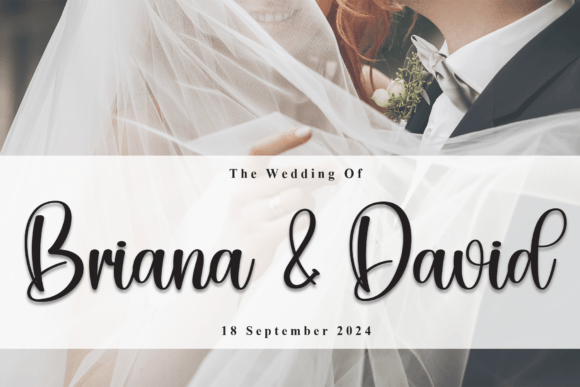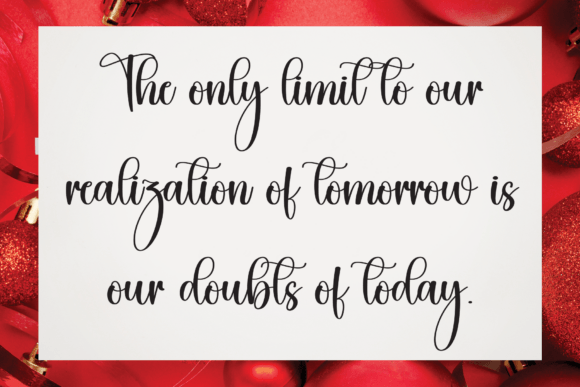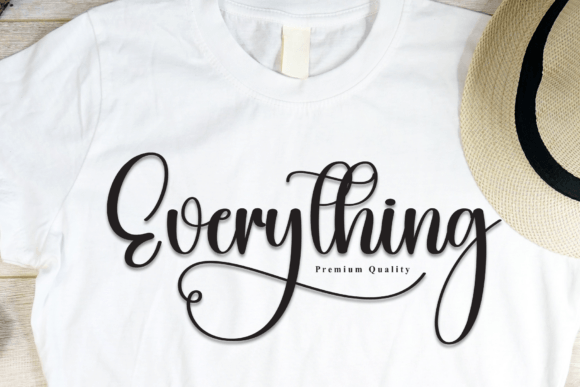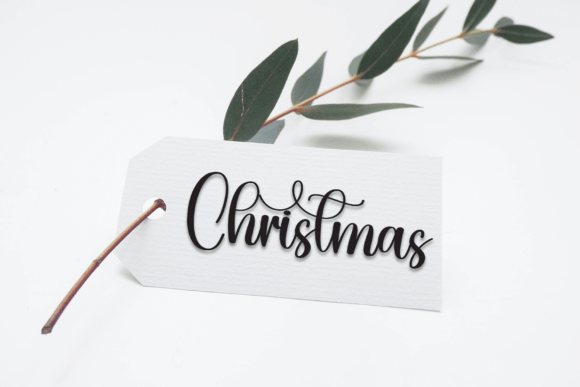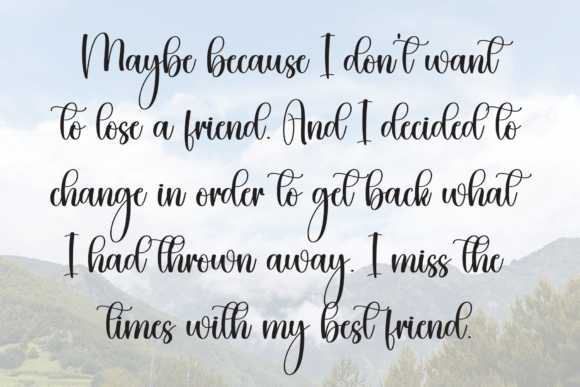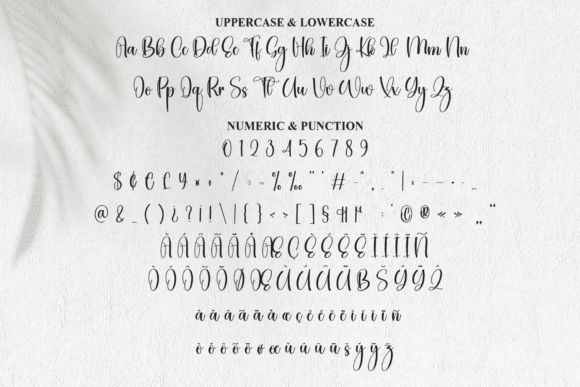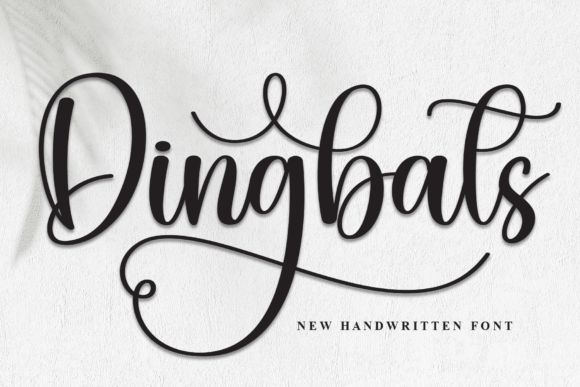
Dingbats Font: Adding a Touch of Whimsy to Your Designs
Dingbats font is a charming handwritten font that has gained popularity among designers and crafters for its playful flourishes and decorative alternate letters. This unique font style adds a personal touch to any text, making it perfect for creative projects, invitations, and more. In this article, we’ll dive into the world of Dingbats font, exploring its features, uses, and benefits.
What is Dingbats Font?
Dingbats font is a type of script font that features handwritten-style letters with playful flourishes and decorative elements. The font is designed to resemble handwriting, with each letter carefully crafted to add a touch of personality to your text. The unique style of Dingbats font makes it stand out from more traditional fonts, adding a whimsical touch to any design.
Features of Dingbats Font
Dingbats font comes with a range of features that make it perfect for creative projects. Some of its key features include:
- Playful flourishes: Each letter in the Dingbats font features playful flourishes that add a touch of whimsy to your text.
- Decorative alternate letters: The font includes decorative alternate letters that allow you to mix and match different styles to create a unique look.
- Handwritten-style letters: The font is designed to resemble handwriting, giving your text a personal touch.
Uses of Dingbats Font
Dingbats font is perfect for a range of creative projects, including:
- Invitations: Add a touch of whimsy to your invitations with Dingbats font, making them stand out from the crowd.
- Creative projects: Use Dingbats font to add a personal touch to your creative projects, such as scrapbooking, crafting, and more.
- Signage: Dingbats font is perfect for creating eye-catching signage, such as menu boards, posters, and flyers.
- Digital designs: Use Dingbats font in your digital designs, such as social media graphics, blog posts, and more.
Benefits of Using Dingbats Font
There are many benefits to using Dingbats font in your designs, including:
- Unique style: Dingbats font adds a unique touch to your text, setting it apart from more traditional fonts.
- Personal touch: The handwritten-style letters in Dingbats font give your text a personal touch, making it perfect for creative projects and invitations.
- Versatility: Dingbats font can be used in a range of creative projects, from invitations to digital designs.
Tips for Using Dingbats Font
Here are some tips for using Dingbats font in your designs:
- Use it sparingly: Dingbats font is best used sparingly, as it can be overwhelming if used too much.
- Mix and match: Experiment with different flourishes and decorative alternate letters to create a unique look.
- Pair it with other fonts: Pair Dingbats font with other fonts to create a unique and eye-catching design.
Dingbats font is a charming handwritten font that adds a touch of whimsy to any text. With its playful flourishes and decorative alternate letters, it’s perfect for creative projects, invitations, and more. Whether you’re a designer or crafter, Dingbats font is a great addition to your font collection. So why not give it a try and see how it can add a personal touch to your designs?